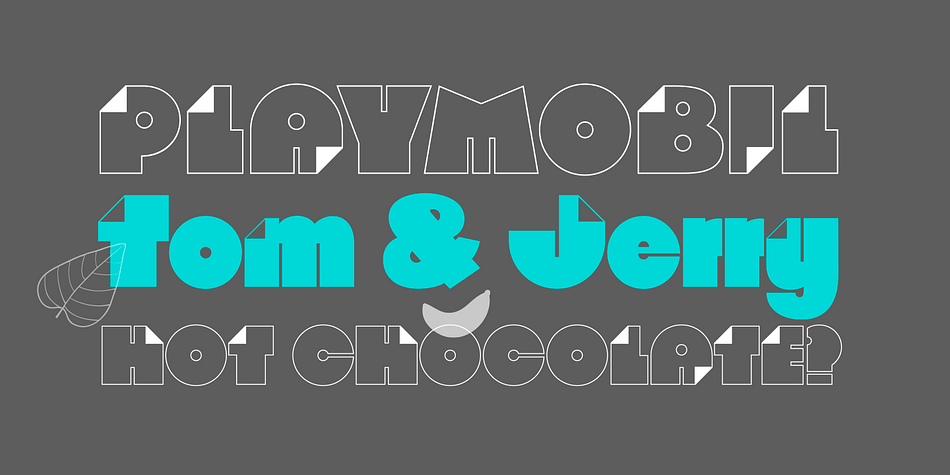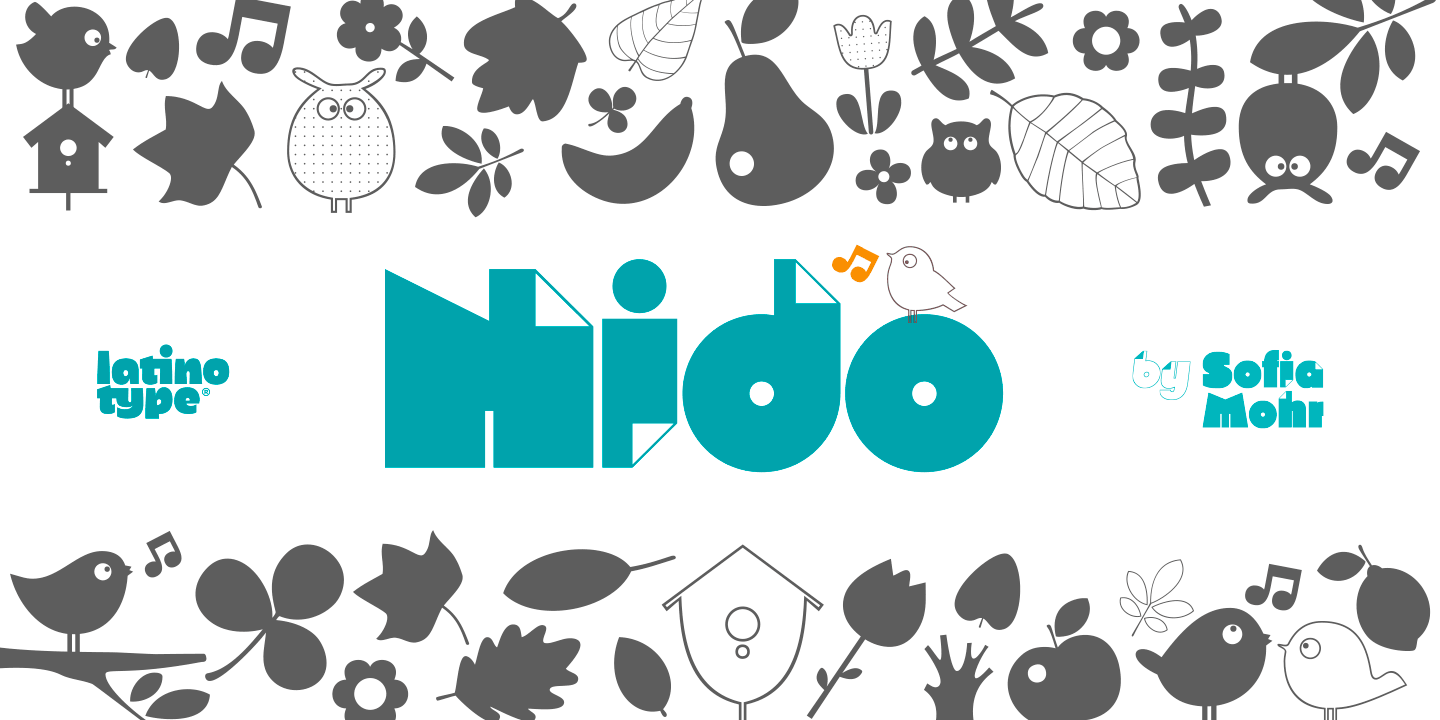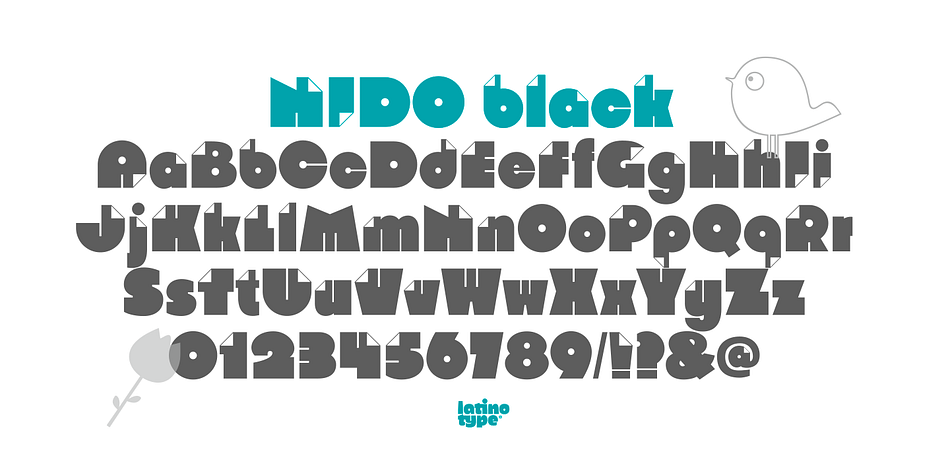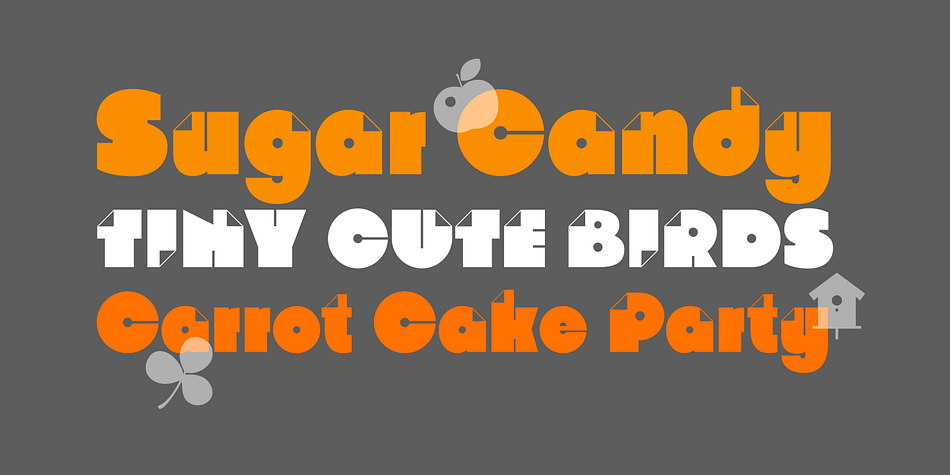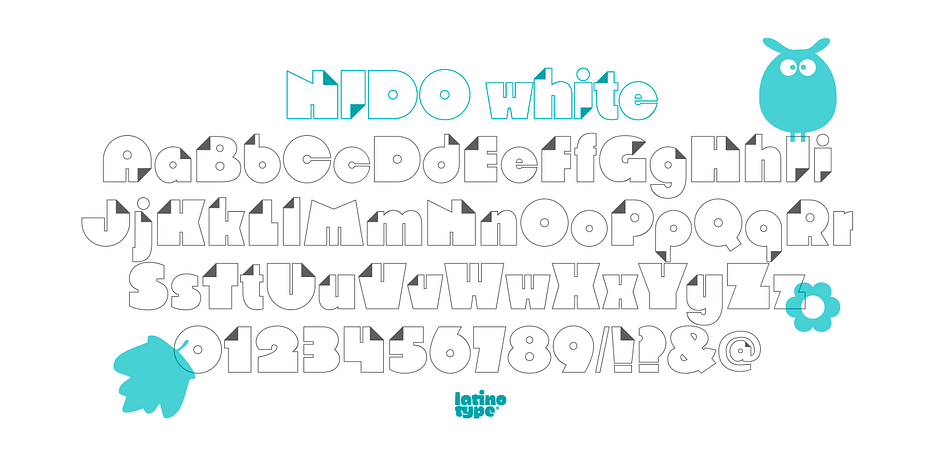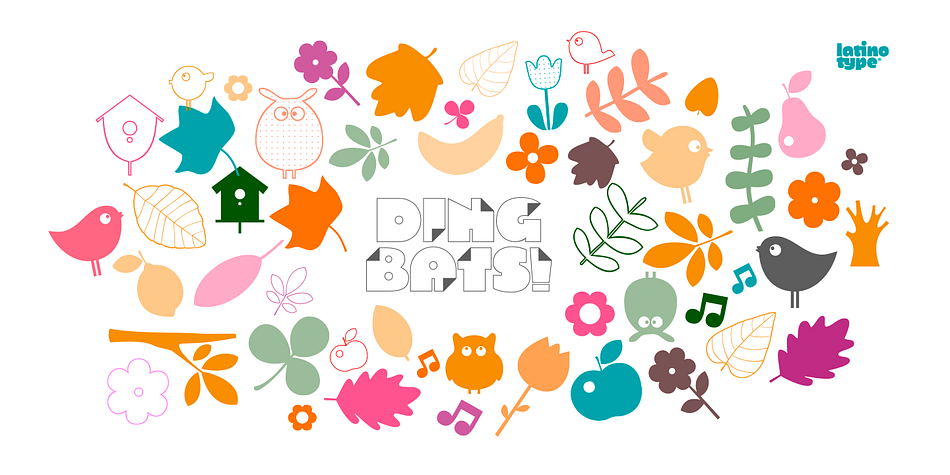
Nido is a dingbat and display font family. This typeface has five styles and was published by Latinotype.
NIDO it’s a cute and funny child’s typeface, designed for logos, title books, invitations, birthdays cards, flyers, posters, advertising and much more. It’s compose for 4 styles: black, white, grey and dingbats that can be used nicely together.